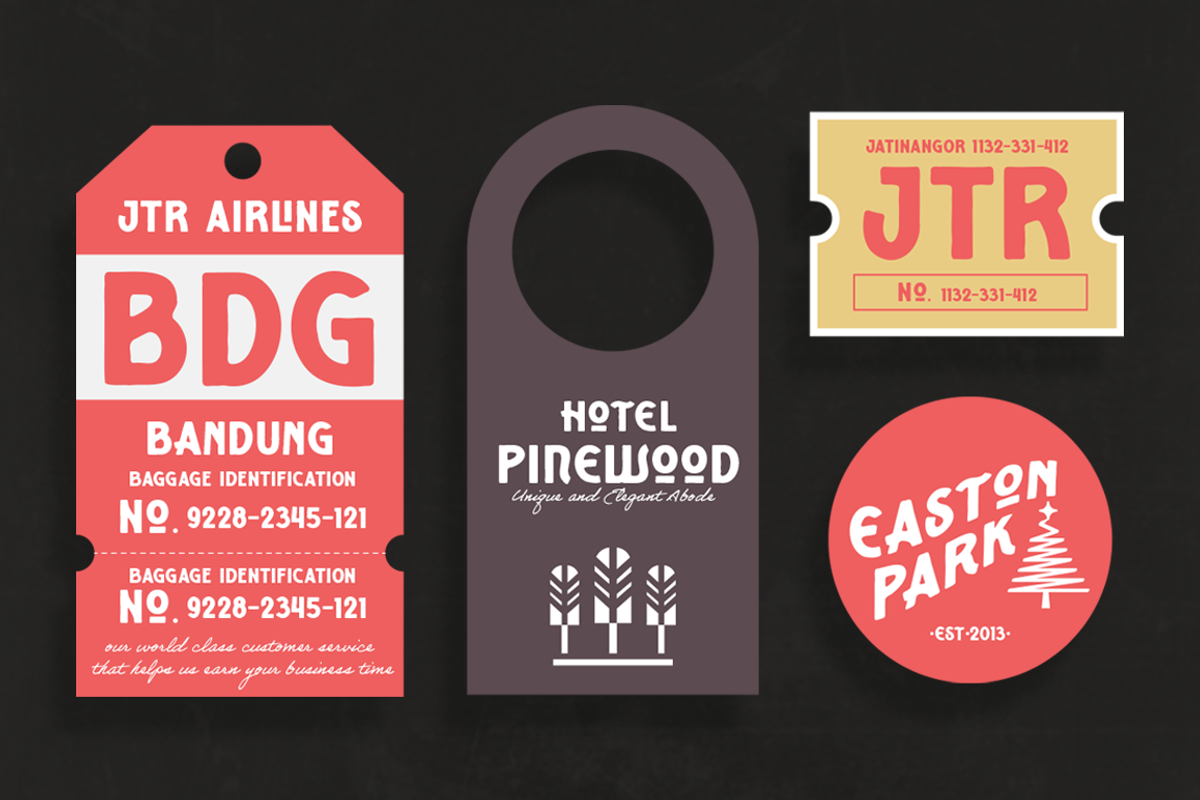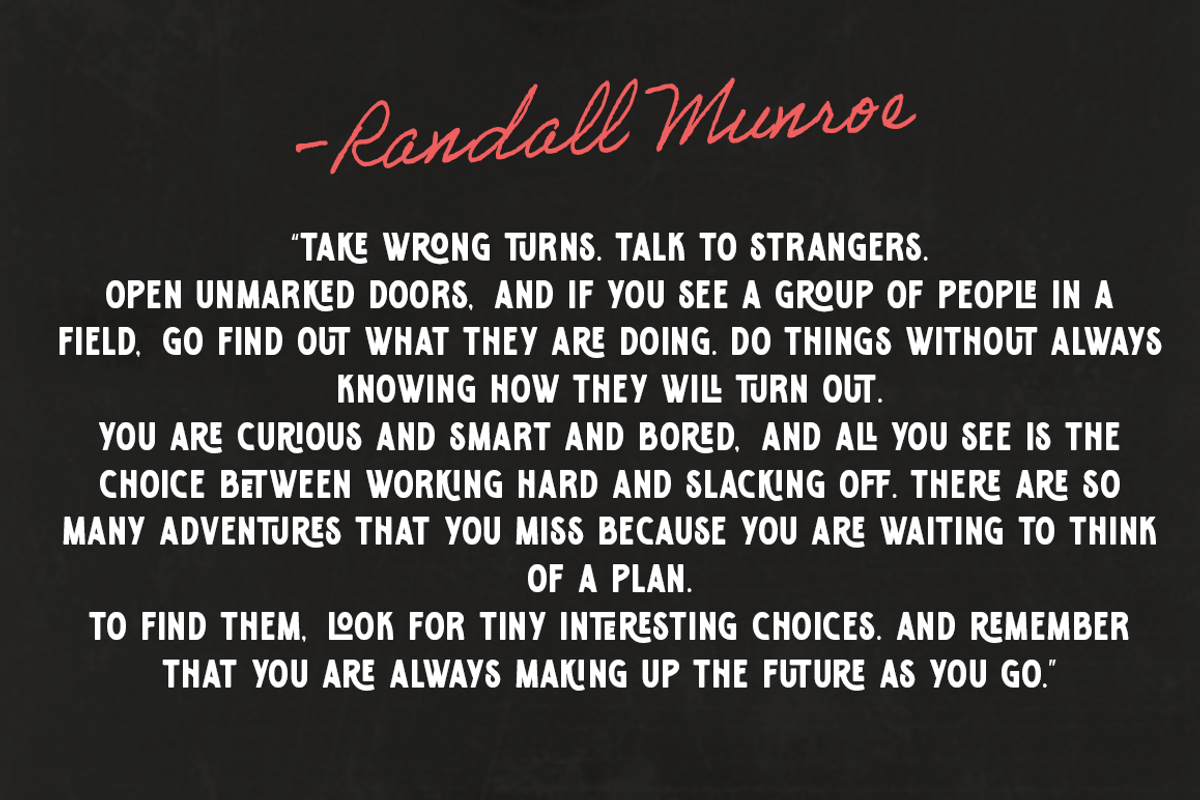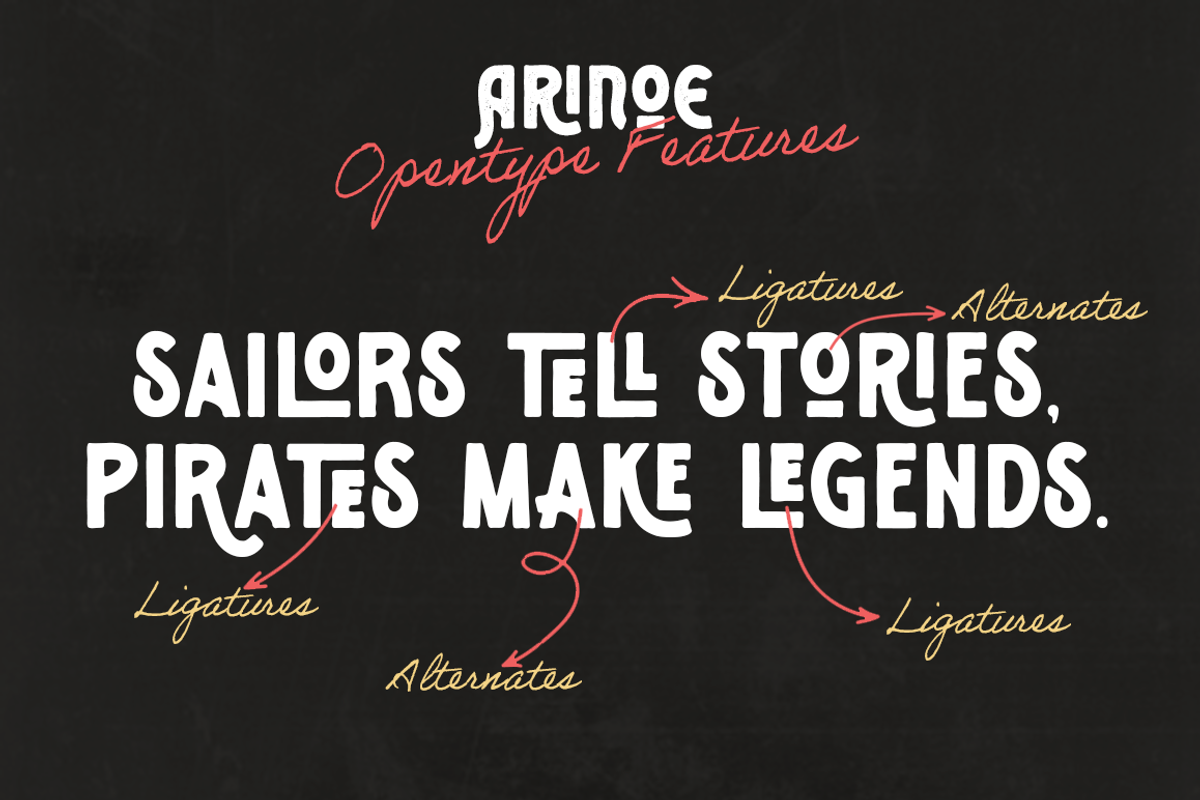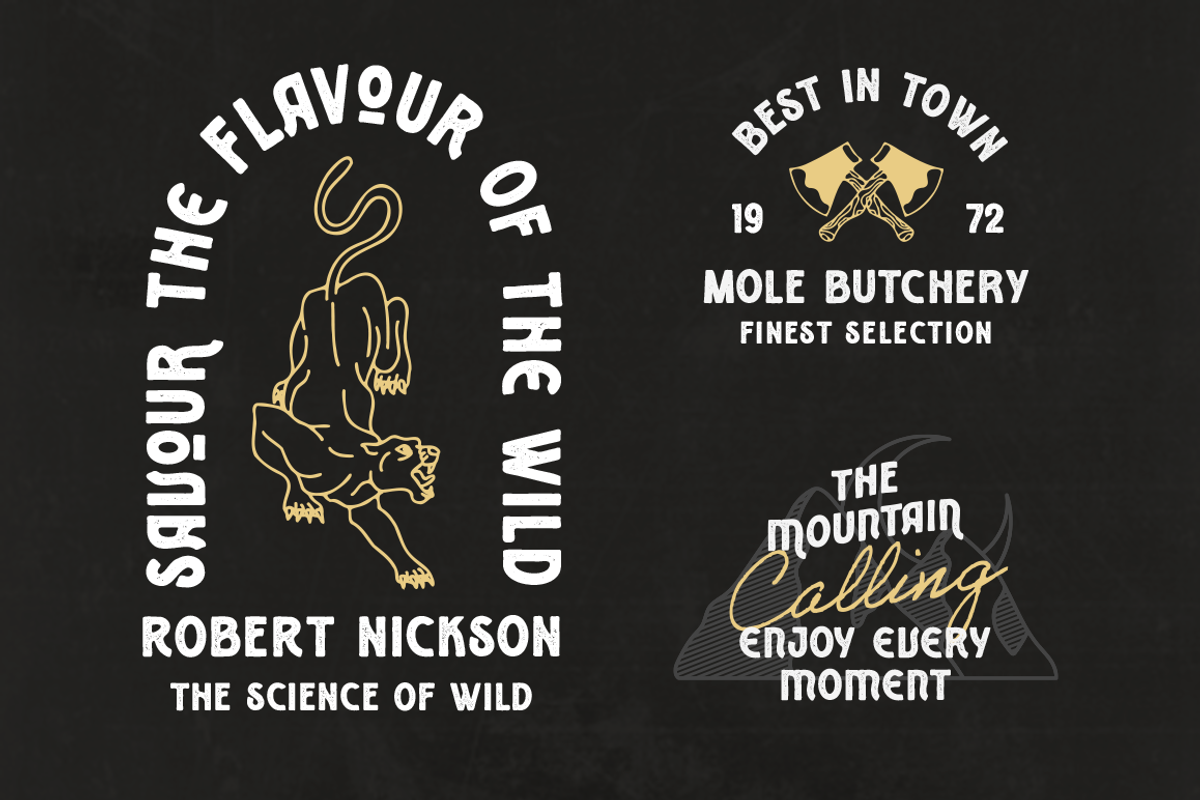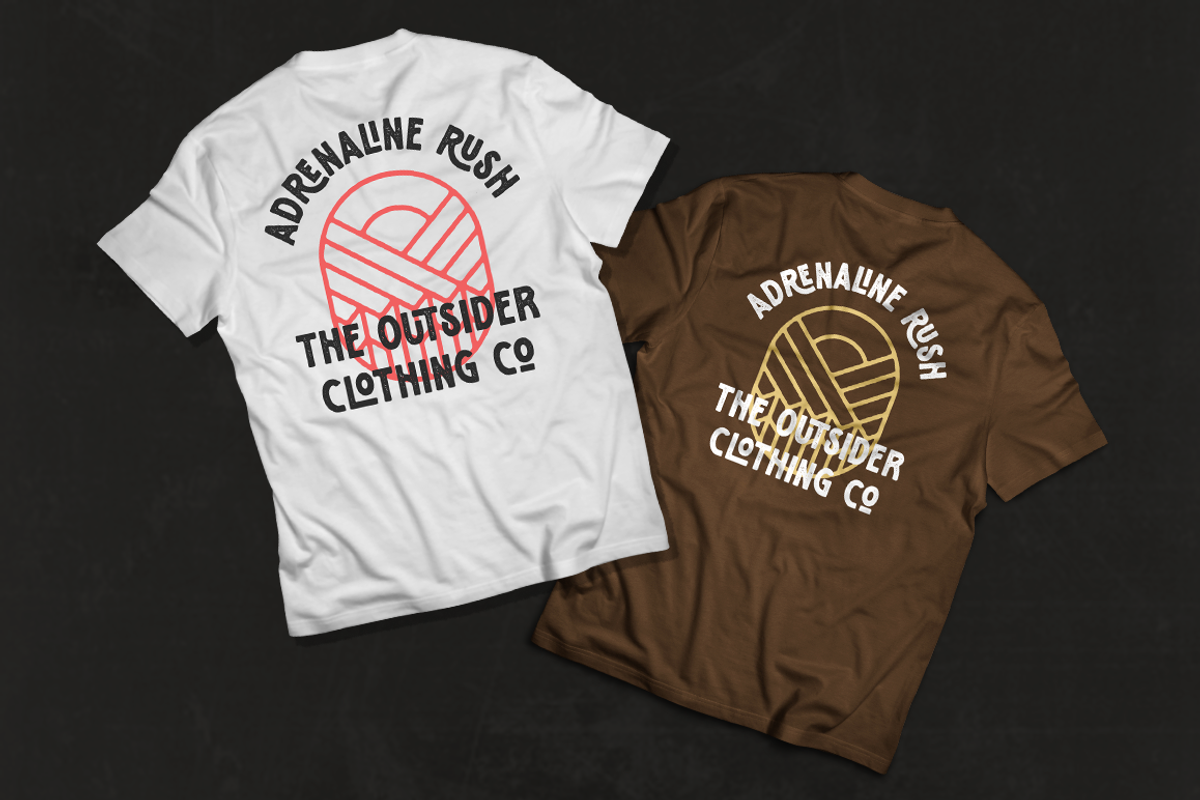
Arinoe is a cool display font that embodies uniqueness and authenticity in every character. Comes with tons of alternates and ligatures which is fun to explore for your design needs.
This font is perfect for posters, social media posts, branding, personal projects, etc.
- Uppercase
- Number & Punctuation
- Multilingual Support
- Ligatures & Stylistic Alternates